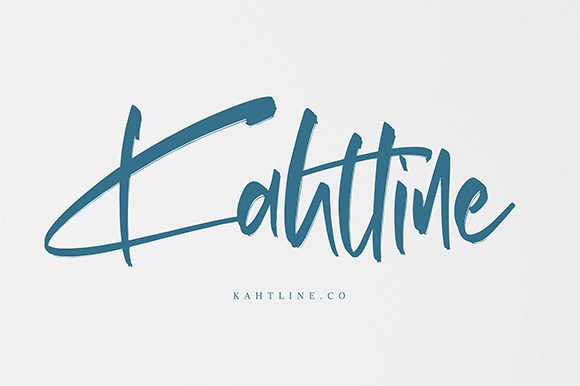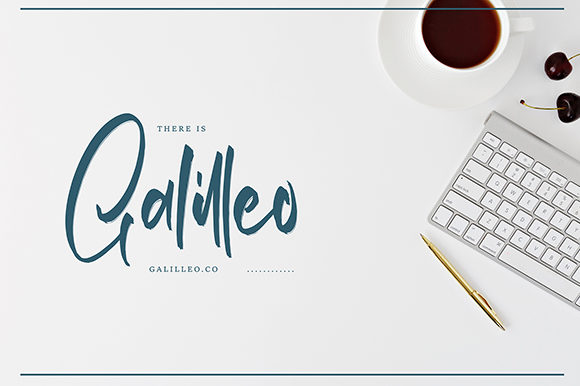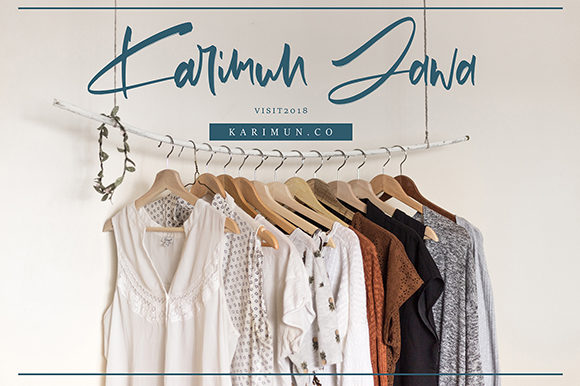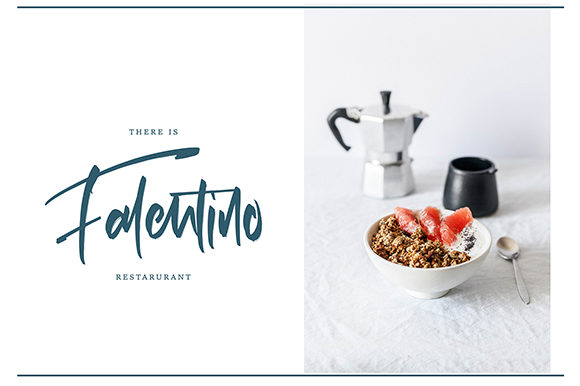
Introduction to Shinderella Font
Have you ever been stuck on a creative project, staring at a blank page with a million ideas swirling in your head, but unable to bring them to life? That’s where the perfect font can make all the difference. For designers, finding the right font can be a game-changer, elevating a project from bland to grand. And that’s exactly where the enchanting Shinderella Font comes in – a lovely and bold handwritten font with a charming twist that’s sure to capture your heart.
| 👤 Author | Pineungtype & Missinklab |
Whether you’re working on a high-quality design project that requires a touch of whimsy or a free download for a personal creative venture, the Shinderella Font is an excellent addition to your design resource arsenal. With its transparent background and versatile style, this font is perfect for designers who want to add a unique and creative touch to their work.
Key Features of Shinderella Font
- High-quality, elegant script font designed for creative projects and romantic themes.
- Features a transparent background, making it ideal for overlaying on images or videos.
- Unique characteristics include swashes, ligatures, and alternate characters, adding a touch of whimsy to any design.
Honest Review: Shinderella Font
As a designer, I’m always on the lookout for high-quality design resources that can elevate my creative project. The Shinderella Font caught my attention, and I was excited to dive in and see what it had to offer.
Upon initial use, I found that the Shinderella Font is a beautiful, elegant script font that is perfect for adding a touch of sophistication to any design. It features a transparent background, which makes it easy to work with and provides a clean look in any creative project.
- High-quality design with smooth lines and curves ✨
- Transparent background for easy editing and layering ✨
- Limited font weights and styles (only 2 available) ⚠️
- No support for multilingual text (only Latin-based characters) ⚠️
Overall, I was impressed with the Shinderella Font, but it does have some limitations that may not make it suitable for every design project. If you’re looking for a high-quality script font for a specific creative project, it’s definitely worth considering. Just be aware of its limitations and plan accordingly.
Some common use cases for Shinderella Font include wedding invitations, birthday cards, and social media graphics. To get the most out of the font, use it in a creative project that requires a high-quality and unique design element. Always use a transparent background to ensure a clean and professional look.